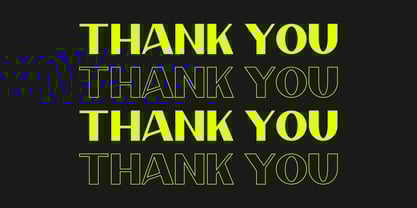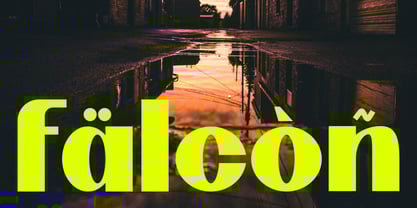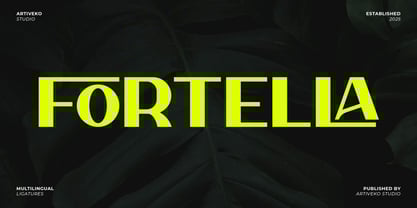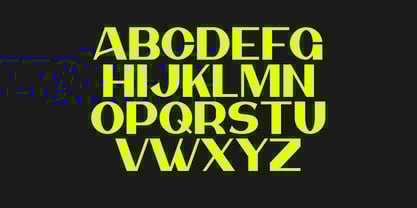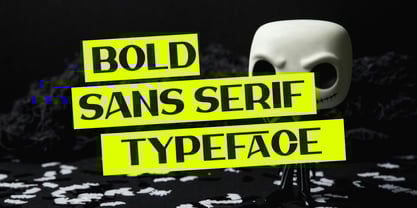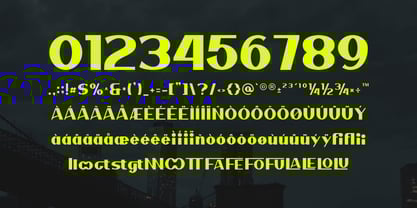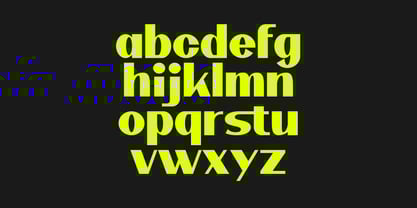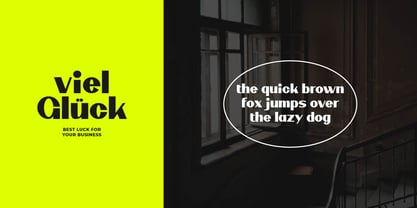
Fortella
by Artiveko
The Fortella Font Family was designed by Iwan Alwan and published by Artiveko. Fortella contains 2 styles and family package options. More about this family
Fortella is a modern sans serif font crafted with precision and clarity in mind. Featuring clean lines, balanced spacing, and a contemporary structure, Fortella is perfect for branding, editorial layouts, websites, packaging, and corporate identity systems.
Its versatile design delivers both strength and elegance, making it ideal for everything from bold headlines to subtle body text. Whether used in tech, fashion, lifestyle, or creative industries, Fortella provides a professional yet stylish presence.
The font includes uppercase and lowercase letters, numerals, punctuation, multilingual support, and a range of stylistic alternates to enhance your creative freedom.
Design with confidence using Fortella — the sans serif font that brings modern simplicity and refined structure to every project.